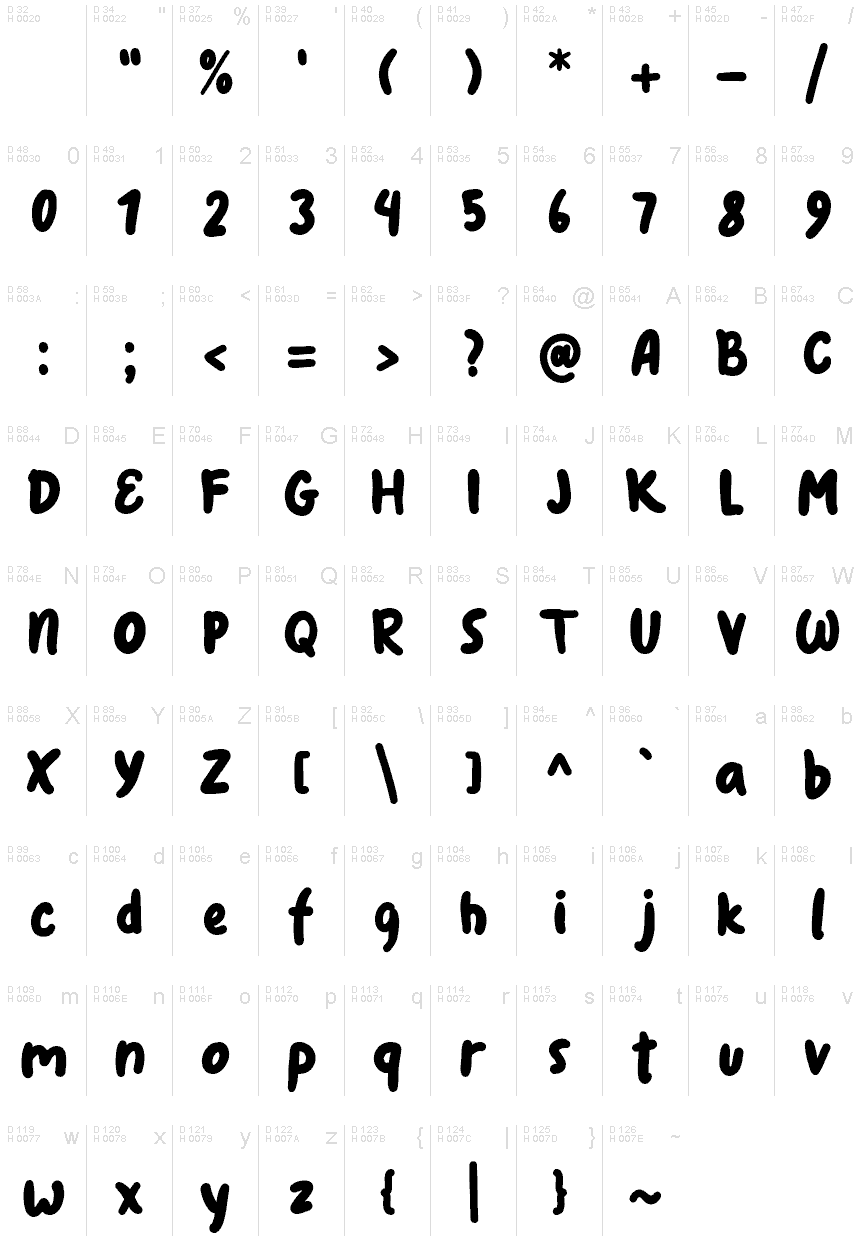
Sweet Candy - Demo
\nSweet Candy font is a handwritten typeface passionately crafted by Tera Asset Garage in bold weight. The font uses smooth flowing casual characters to convey an informal friendly message with each written word. This free handwritten font’s remarkable presence will not go unnoticed in branding projects among other applications.
Use Sweet Candy in logo design, product packaging, invitations, greeting cards, and kids’ books. The engaging font can also effortlessly blend in with typography art applications including comic books and cartoon titles. Finally, get your social media posts on Instagram or Facebook standing out with some text presence mixed easily inside photos.